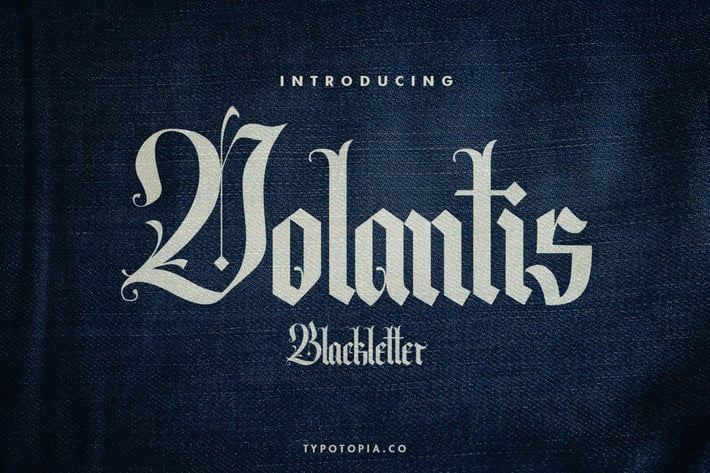
Volantis Vintage Blackletter Font
Introducing Volantis Vintage Blackletter Font. This perfect for the purposes of designing templates, brochures, videos, advertising branding, logos and more.